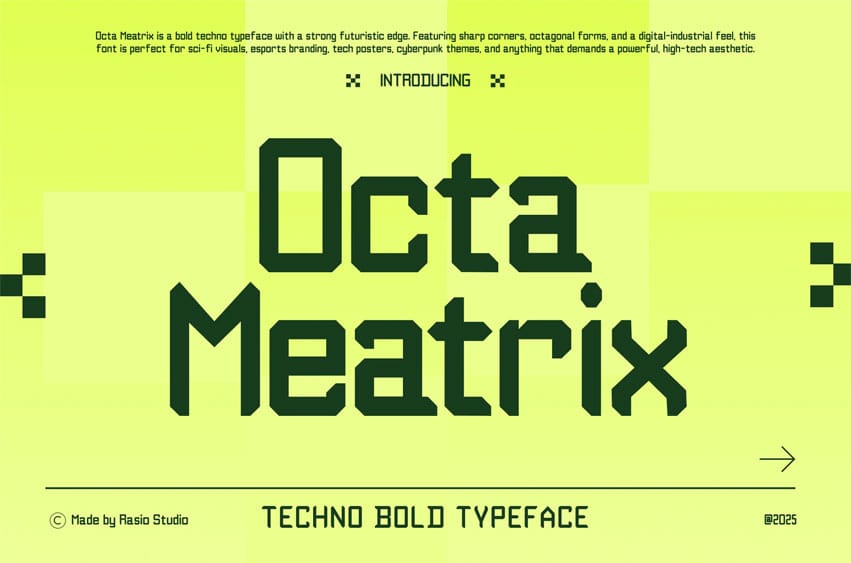
Octa Meatrix Font is a cutting-edge techno display typeface designed for creators who want to make a bold visual statement in futuristic and digital-themed projects. With its uniquely angular letterforms, octagonal shapes, and industrial-inspired geometry, this font channels the raw energy of science fiction, retro-tech nostalgia, and next-gen innovation. It combines mechanical sharpness with digital precision, making it ideal for modern branding that seeks to stand out in a technology-driven world. Each character in Octa Meatrix has been meticulously crafted to reflect a pixel-grid aesthetic, with firm structure and clean strokes that echo the feel of circuit boards, command-line interfaces, and machine-based design systems
Relevance and Use Cases is perfect for wide variety of design applications, including sci-fi movie posters, tech product branding, esports identities, cyberpunk cover art, augmented reality interfaces, software dashboards, mobile apps, and digital events. It thrives in motion graphics, virtual UI/UX environments, and marketing materials that need a sleek, contemporary visual tone. The font’s multilingual capabilities further expand its usability across global campaigns and audiences.